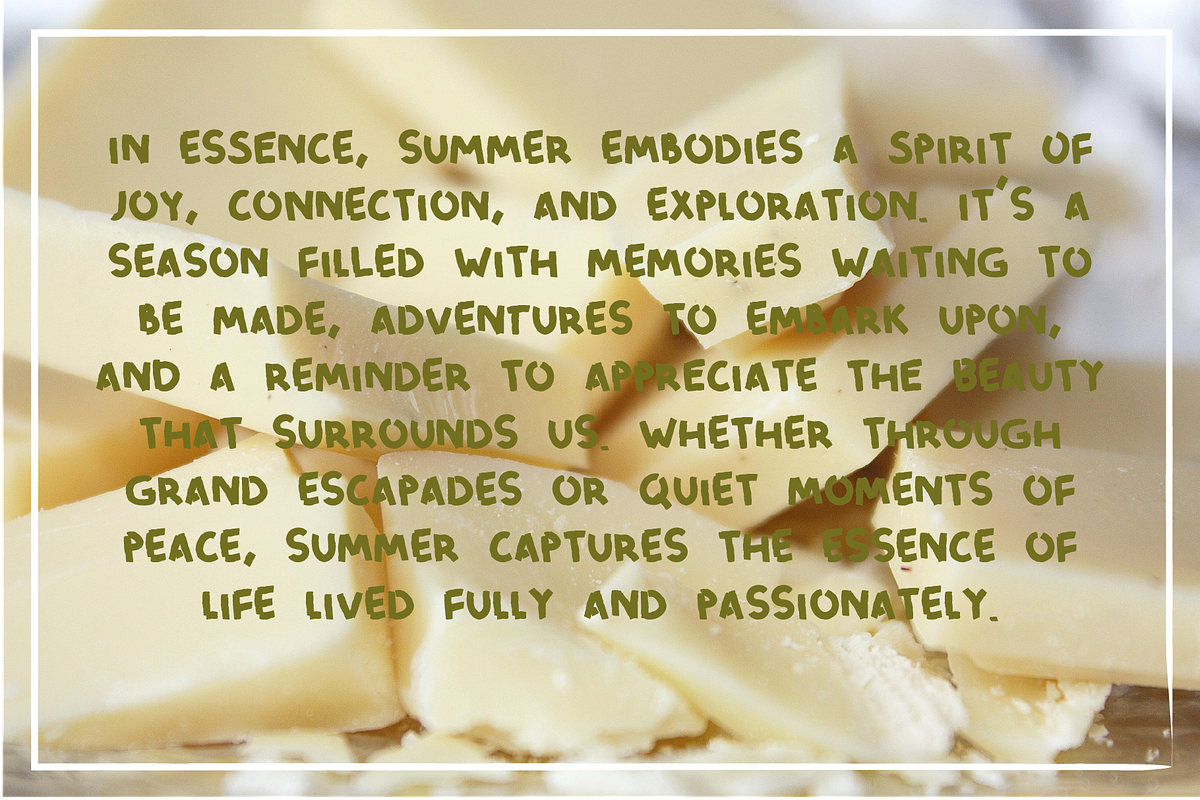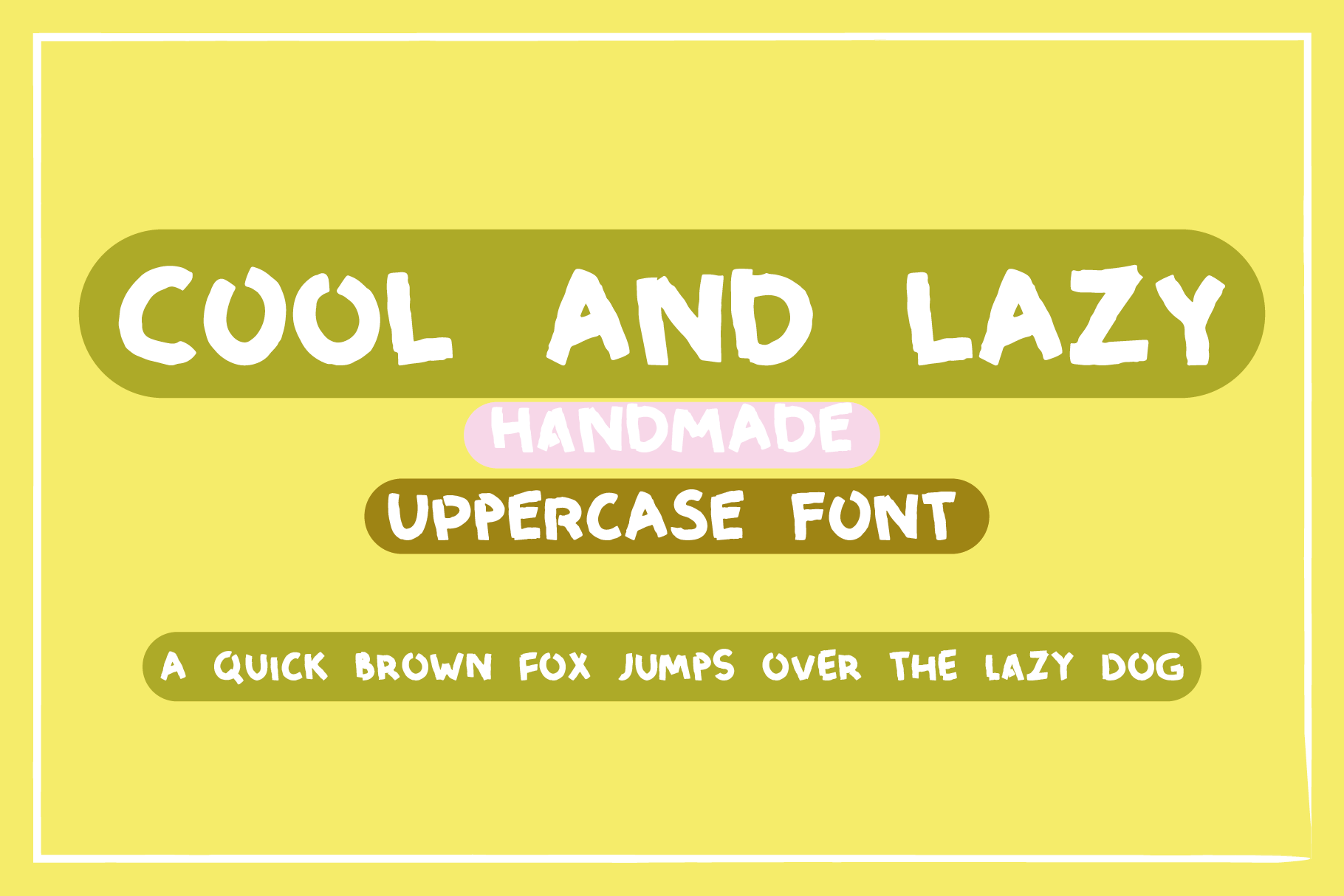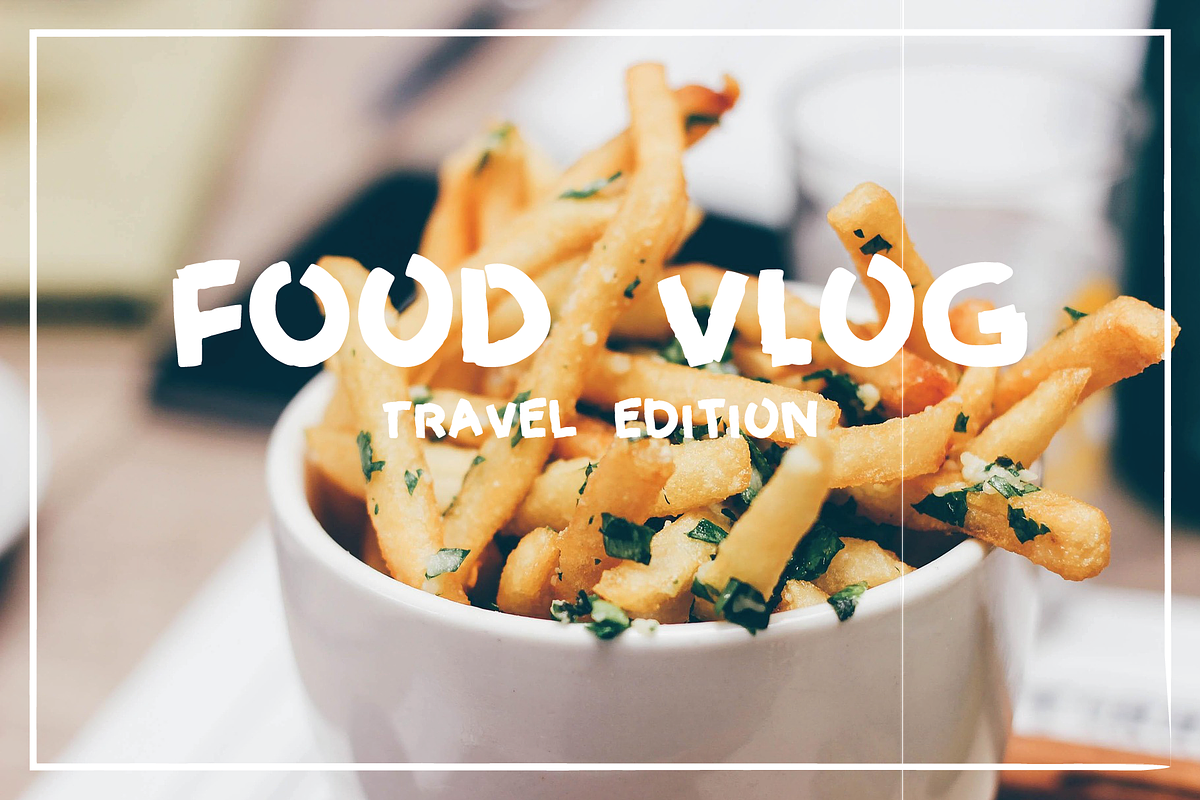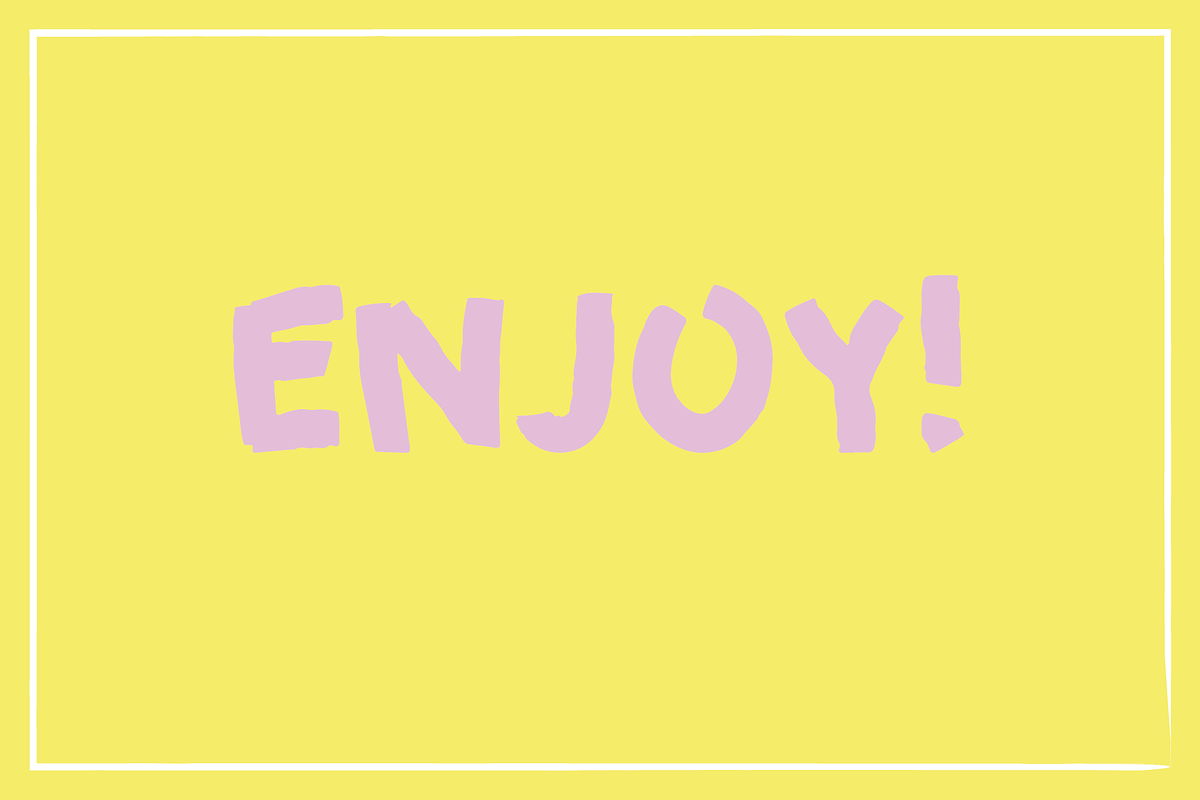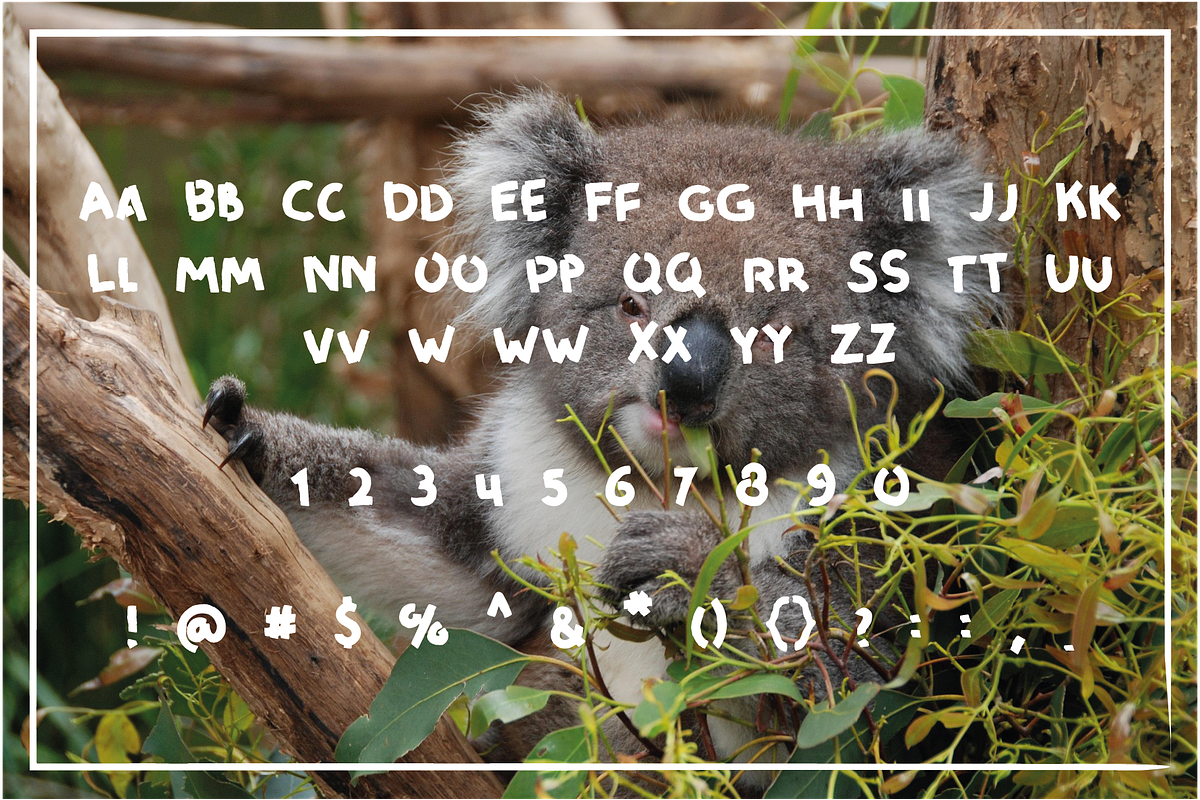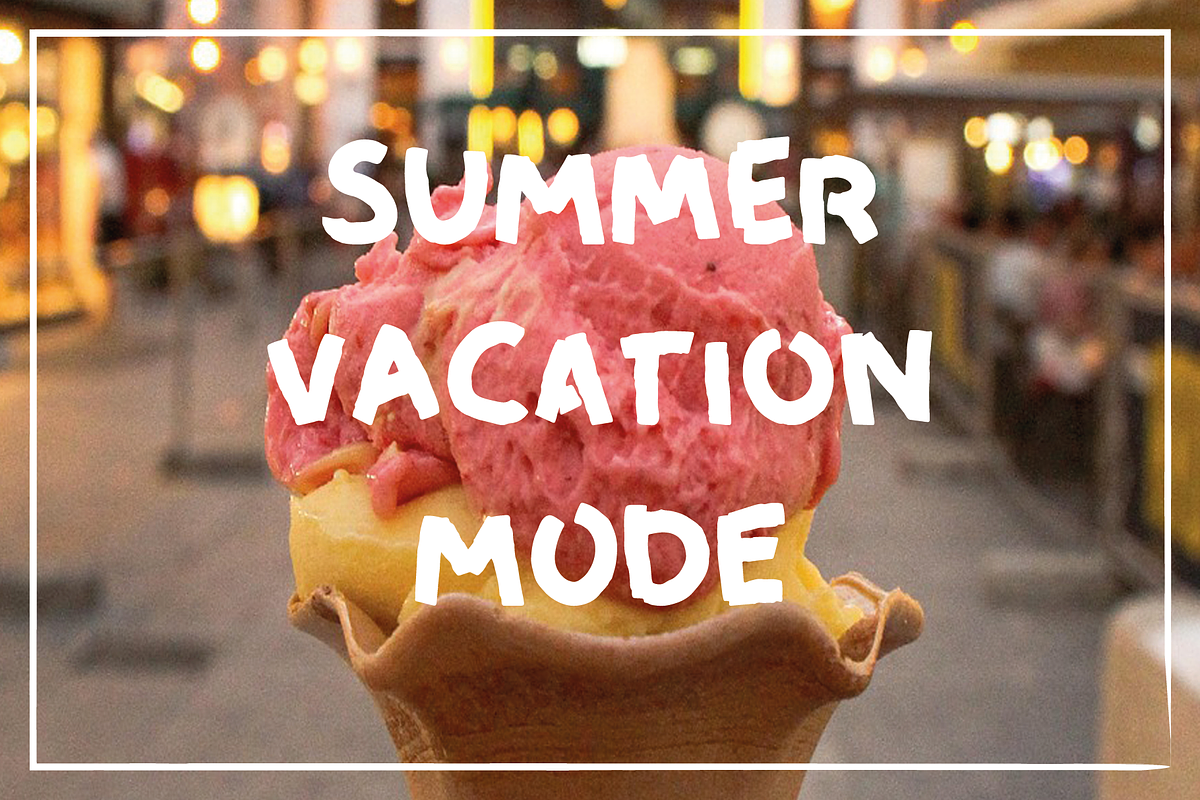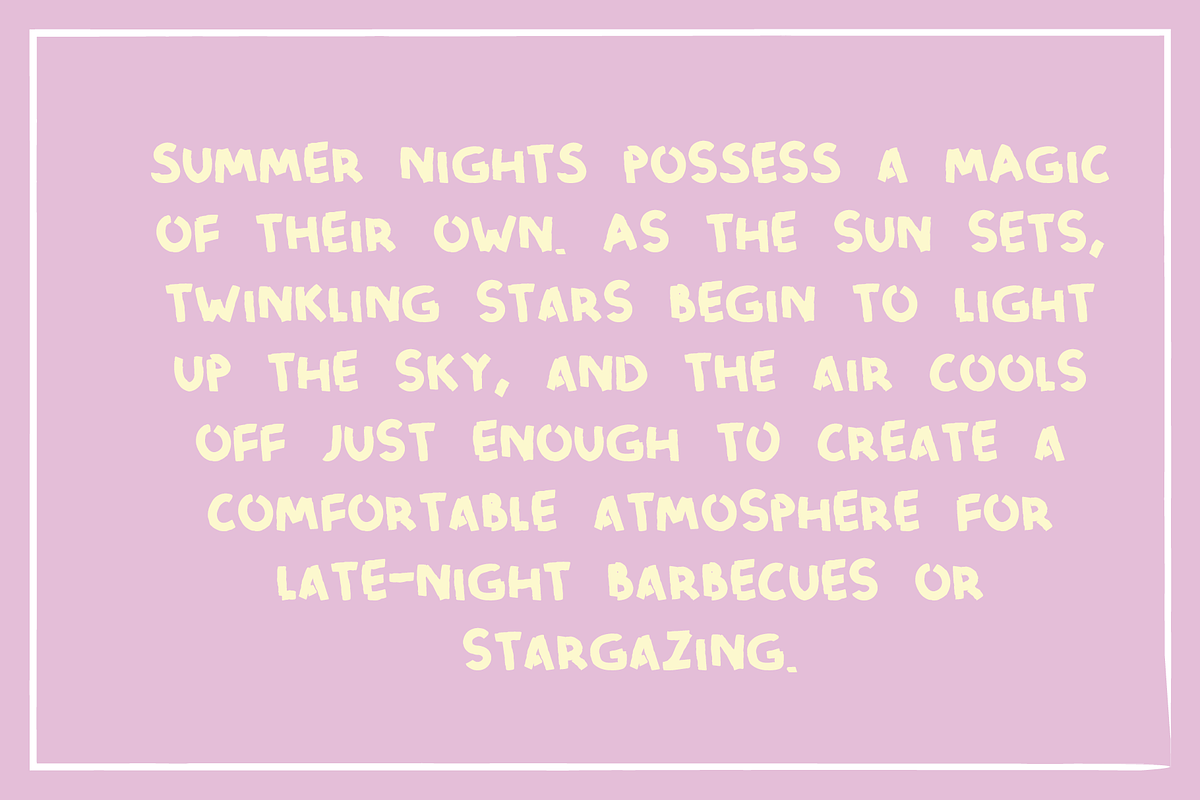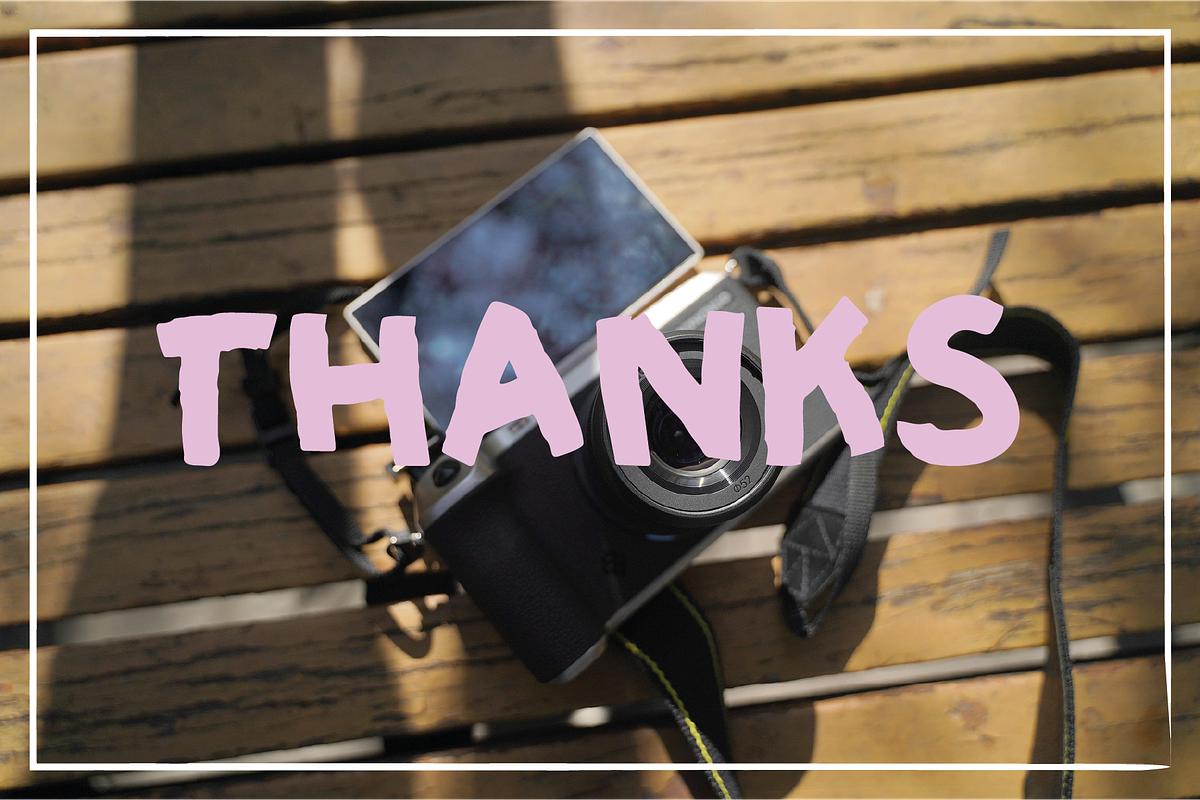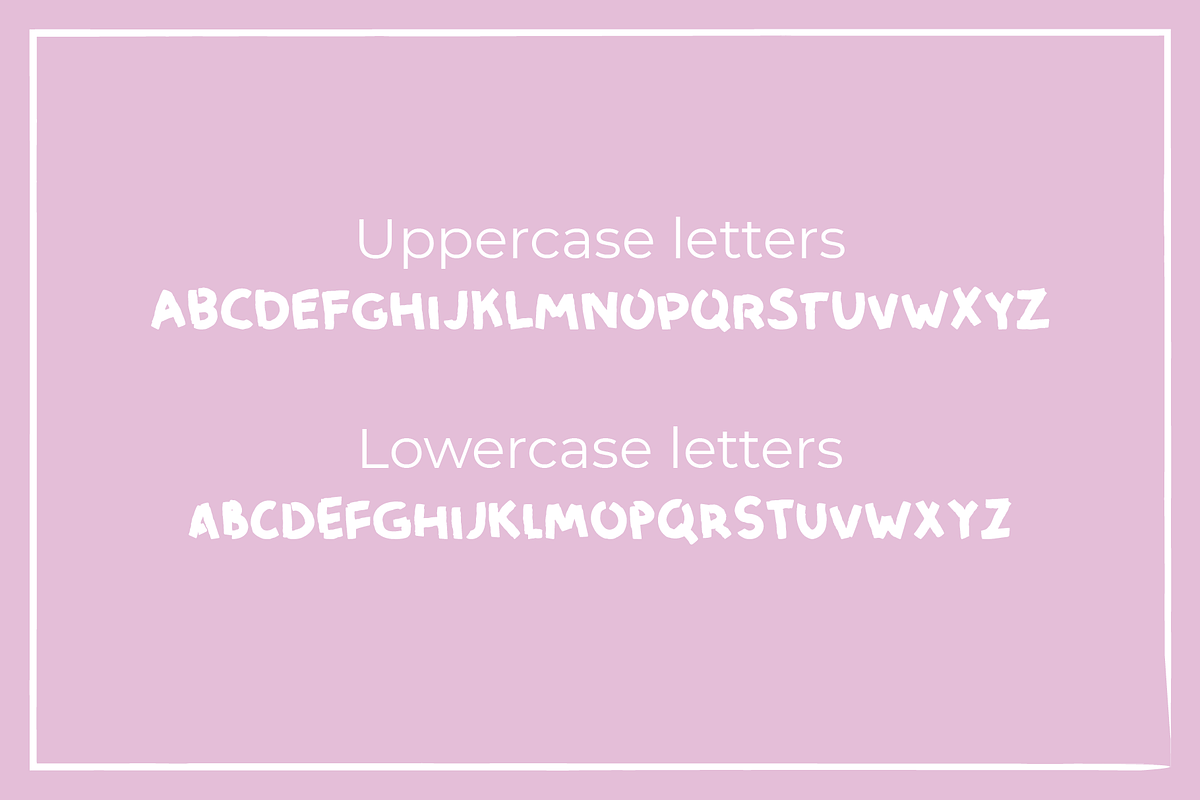
Cool And Lazy Font
This font is inspired by graffiti, handwritten notes, and slightly jagged lines.
Perfect for blogs, stories, captions, and posters.
This font includes uppercase (2 variations), numerals, and punctuation. English only.